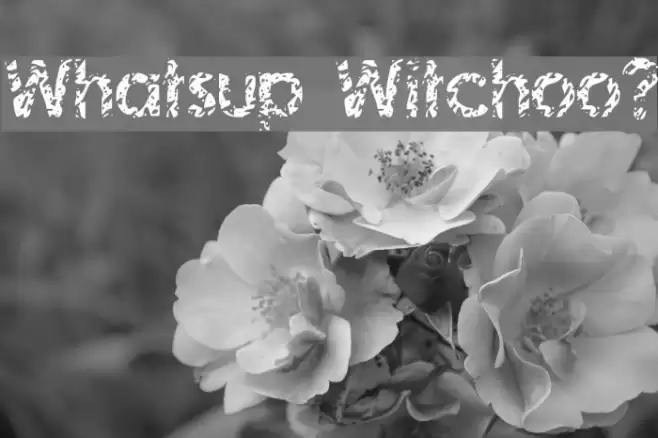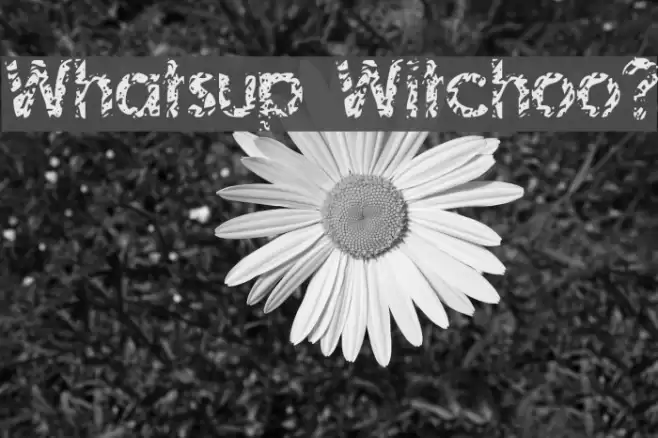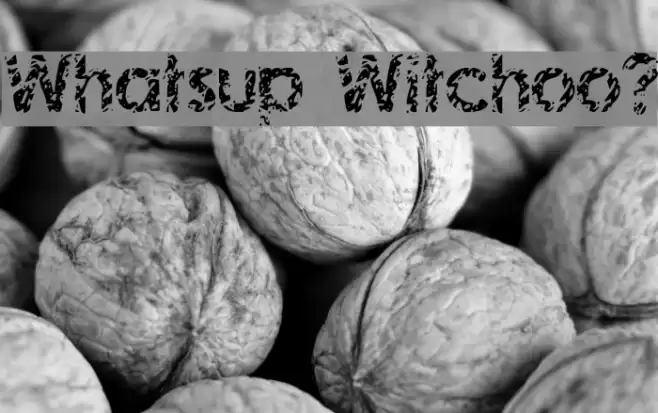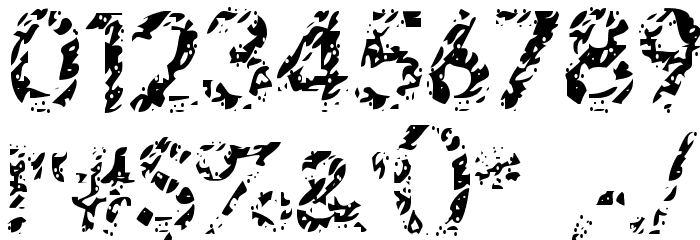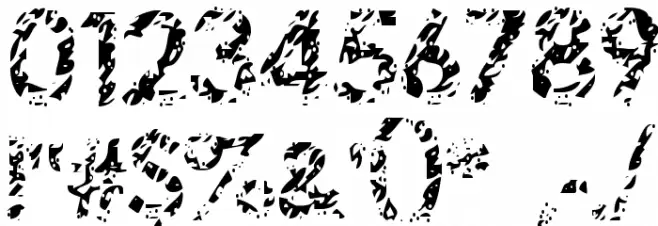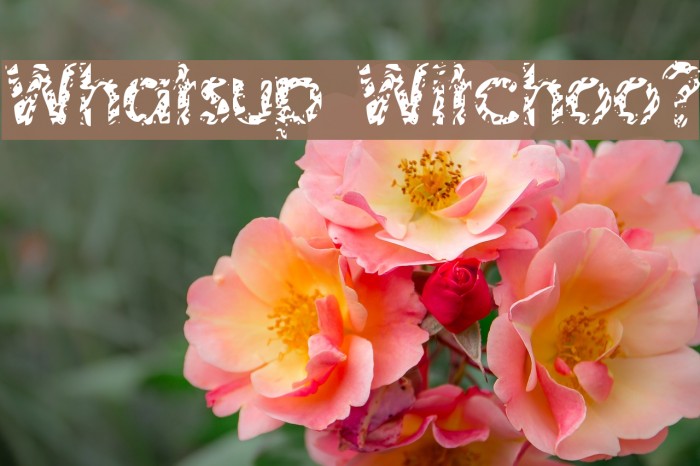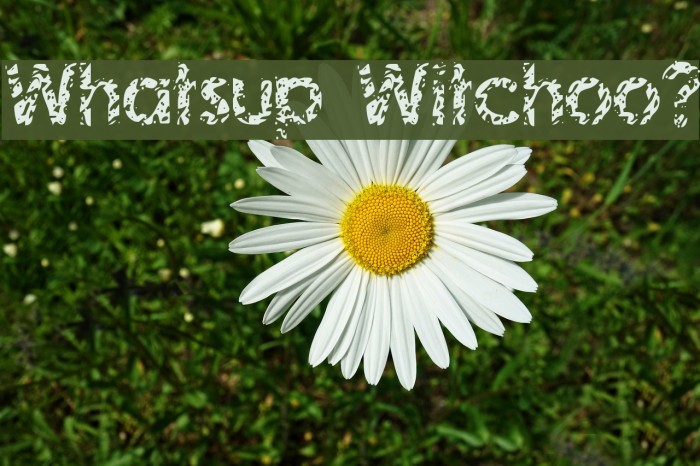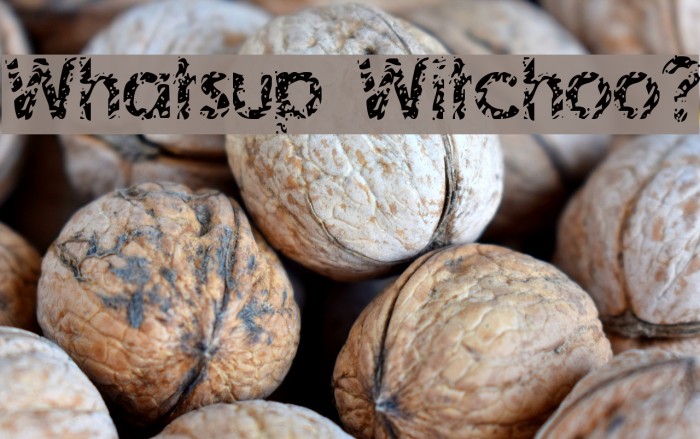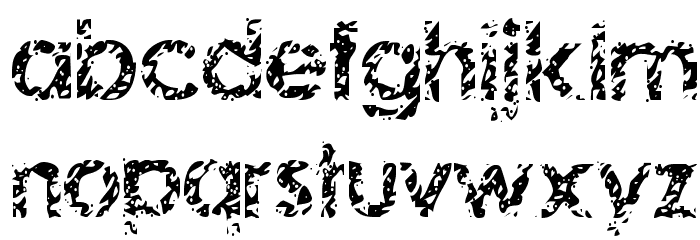
Whatsup Witchoo? Font
Whatsup Witchoo? Description
This font features a highly decorative and distressed style, characterized by a chaotic and fragmented appearance. The letters are bold and have a rough, textured look, giving the impression of being weathered or eroded. Each character is unique, with irregular edges and varying levels of opacity, creating a dynamic and eye-catching effect. The font maintains a consistent height across both uppercase and lowercase letters, while numbers and special characters follow the same distressed aesthetic. This style is perfect for projects that require a bold statement or an edgy, artistic touch.
A bold, distressed font with a chaotic and textured appearance from Broken fonts.